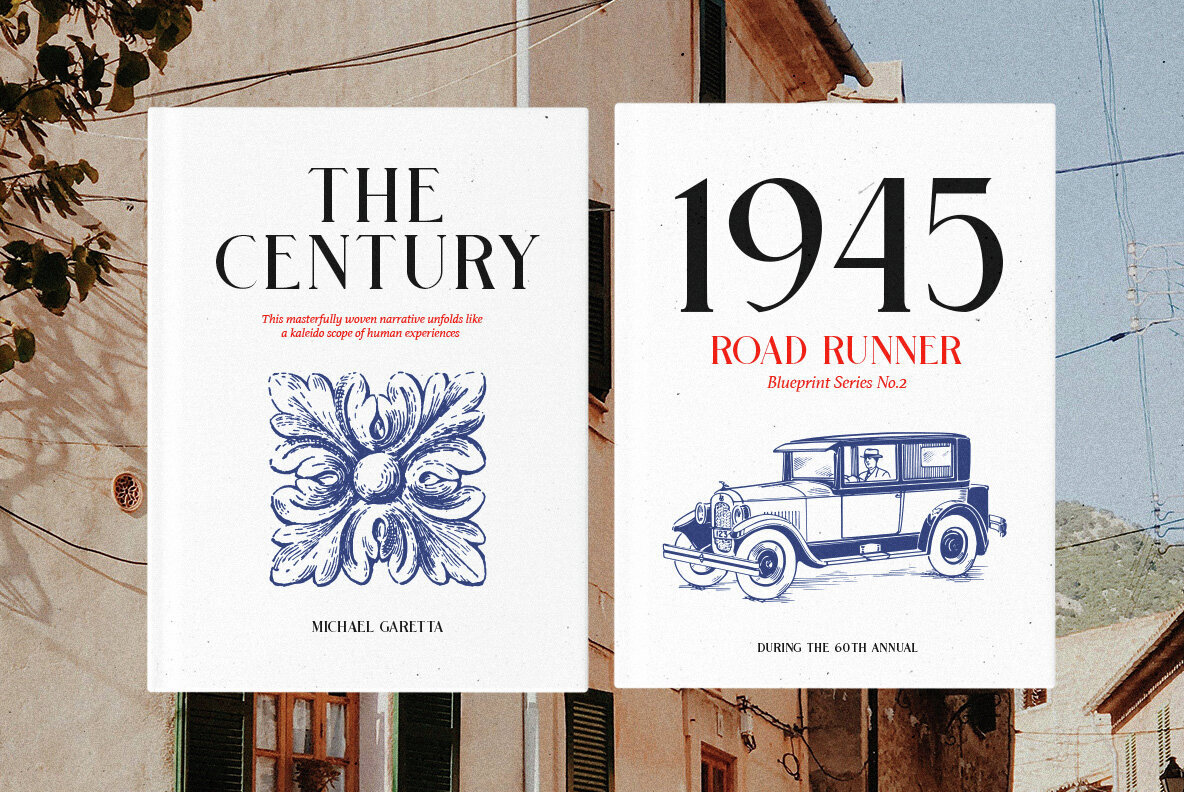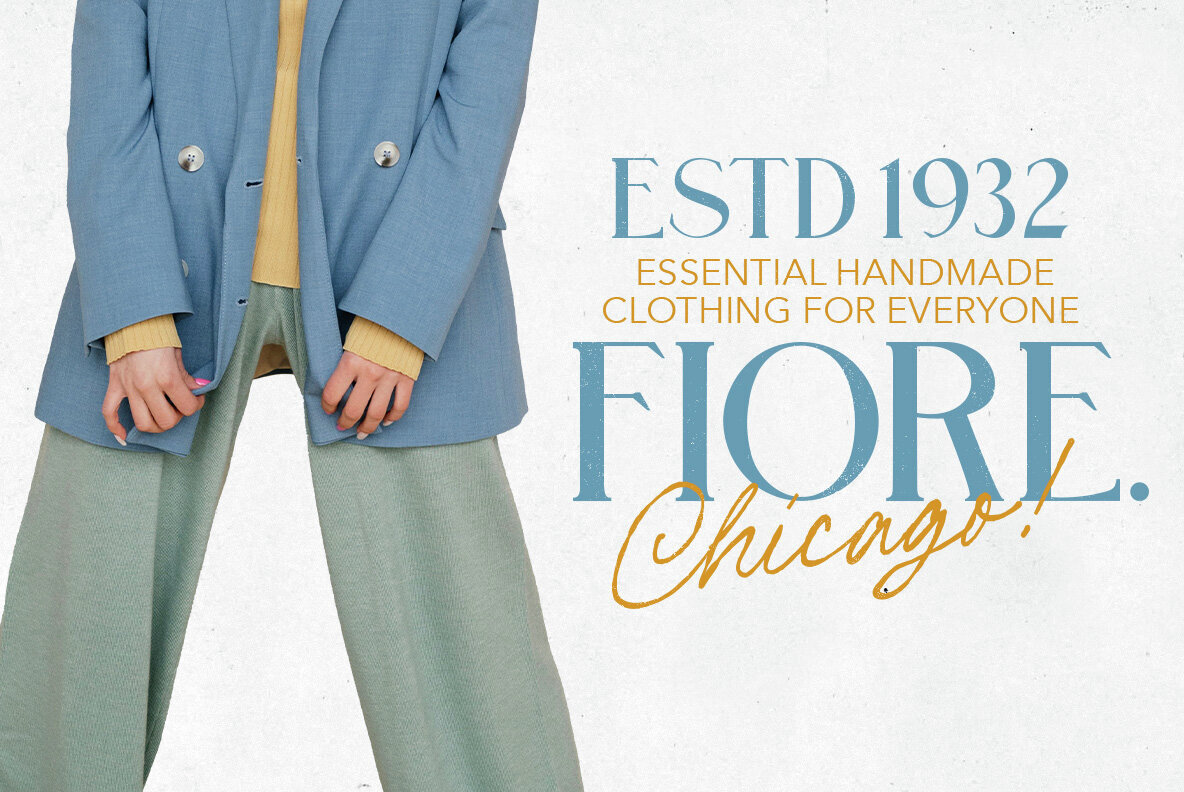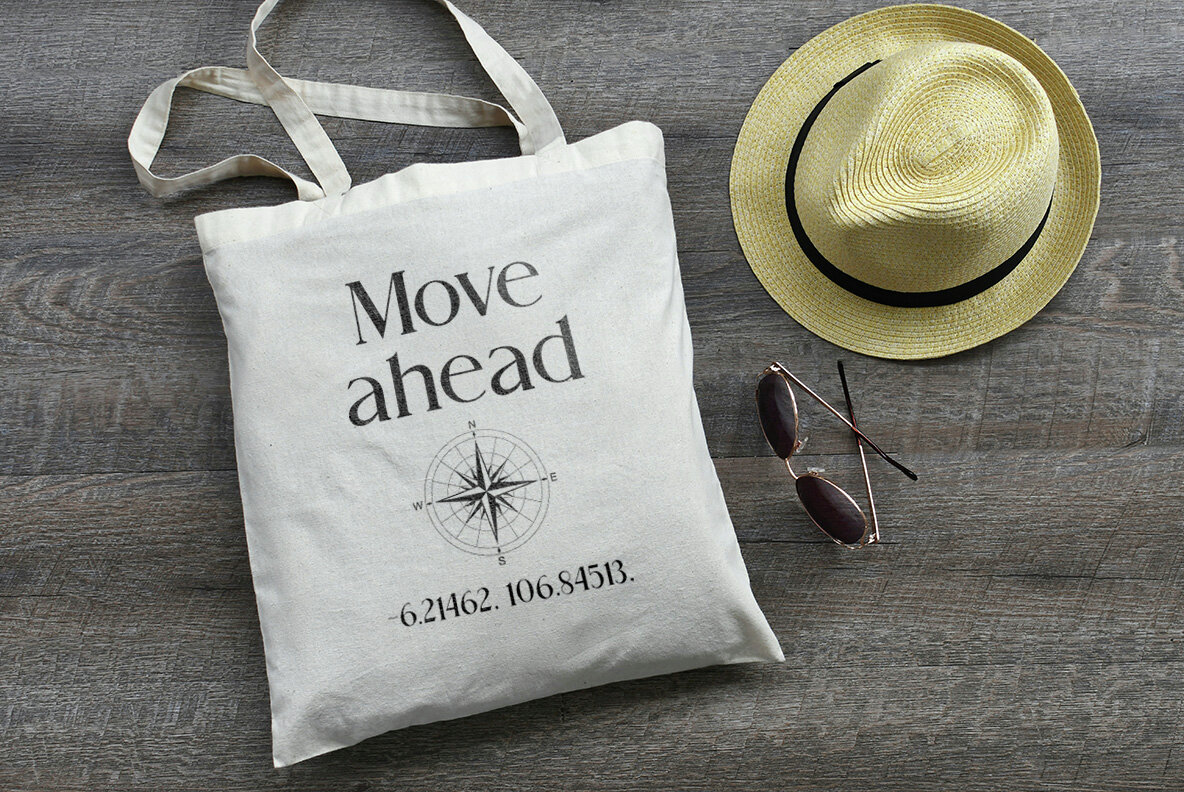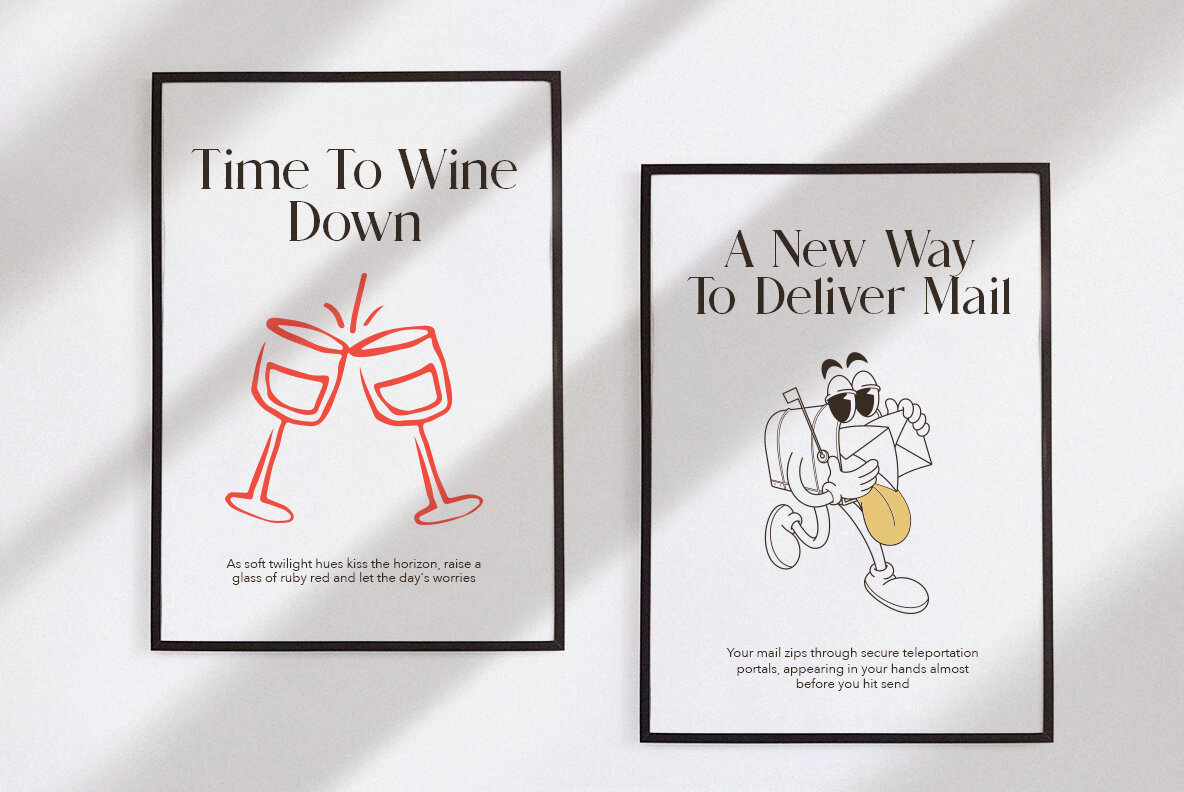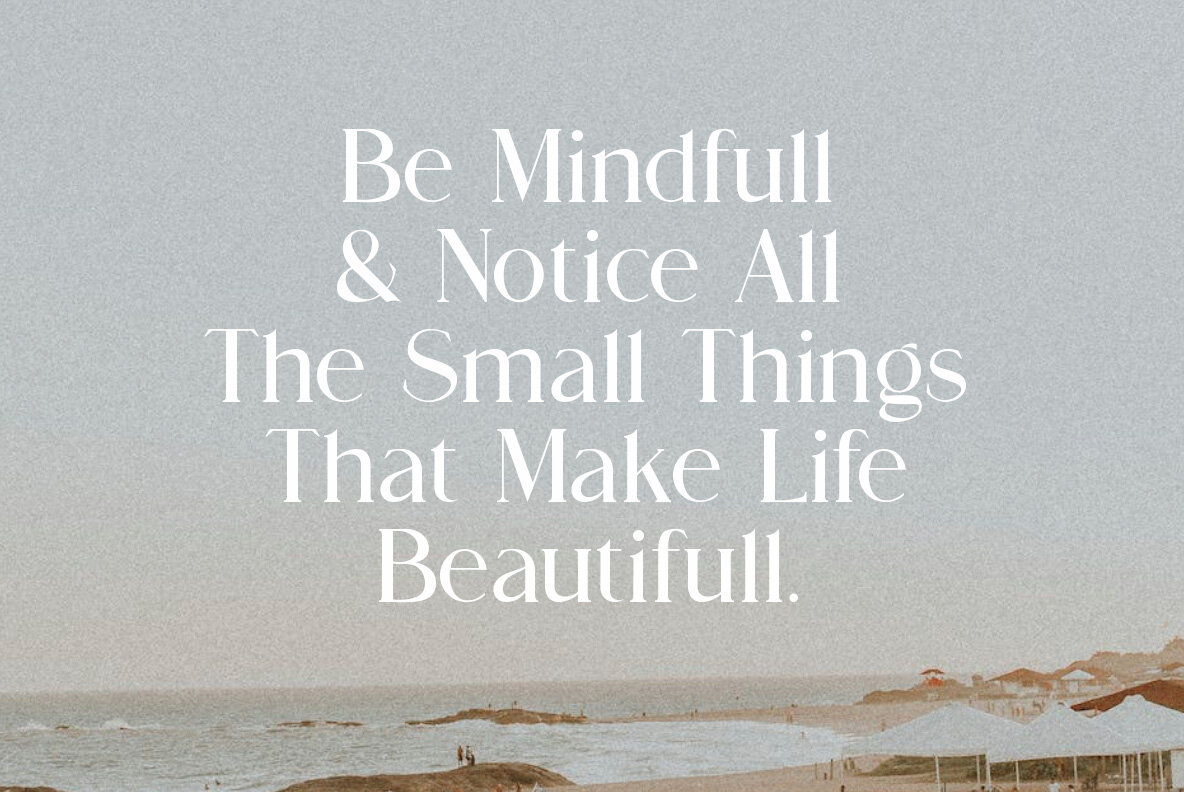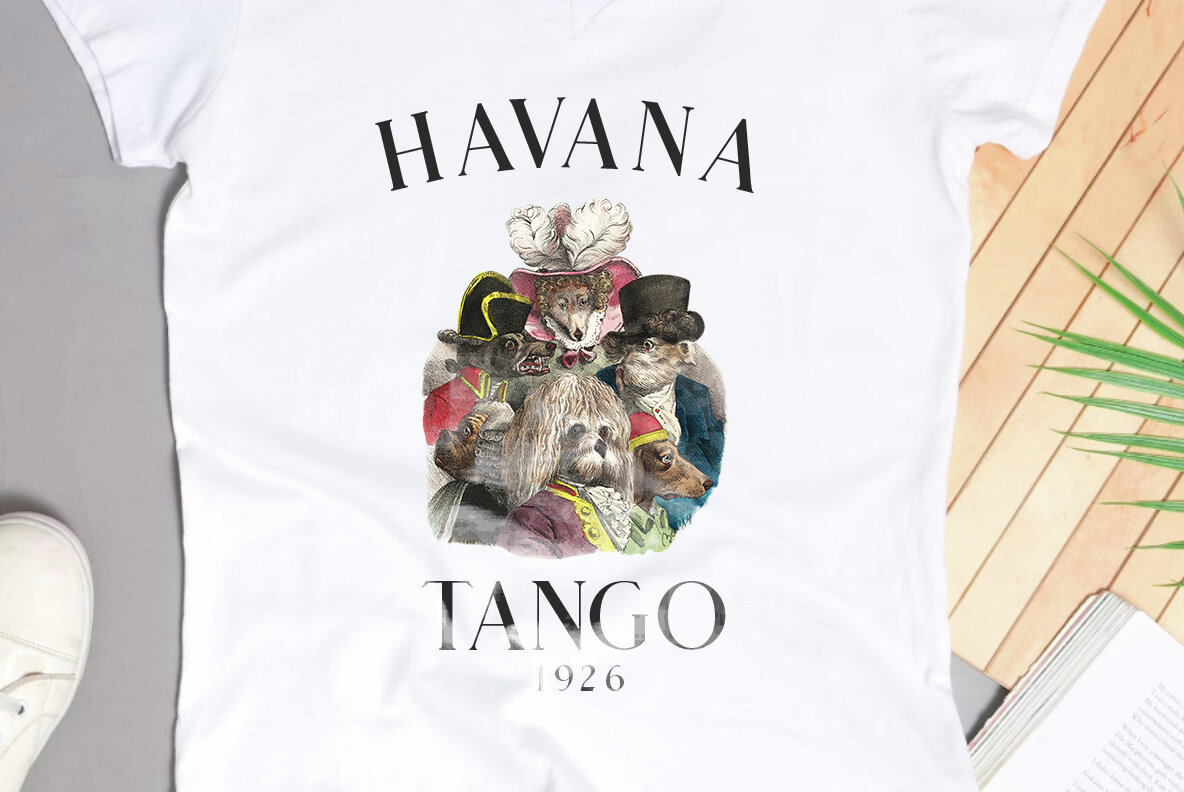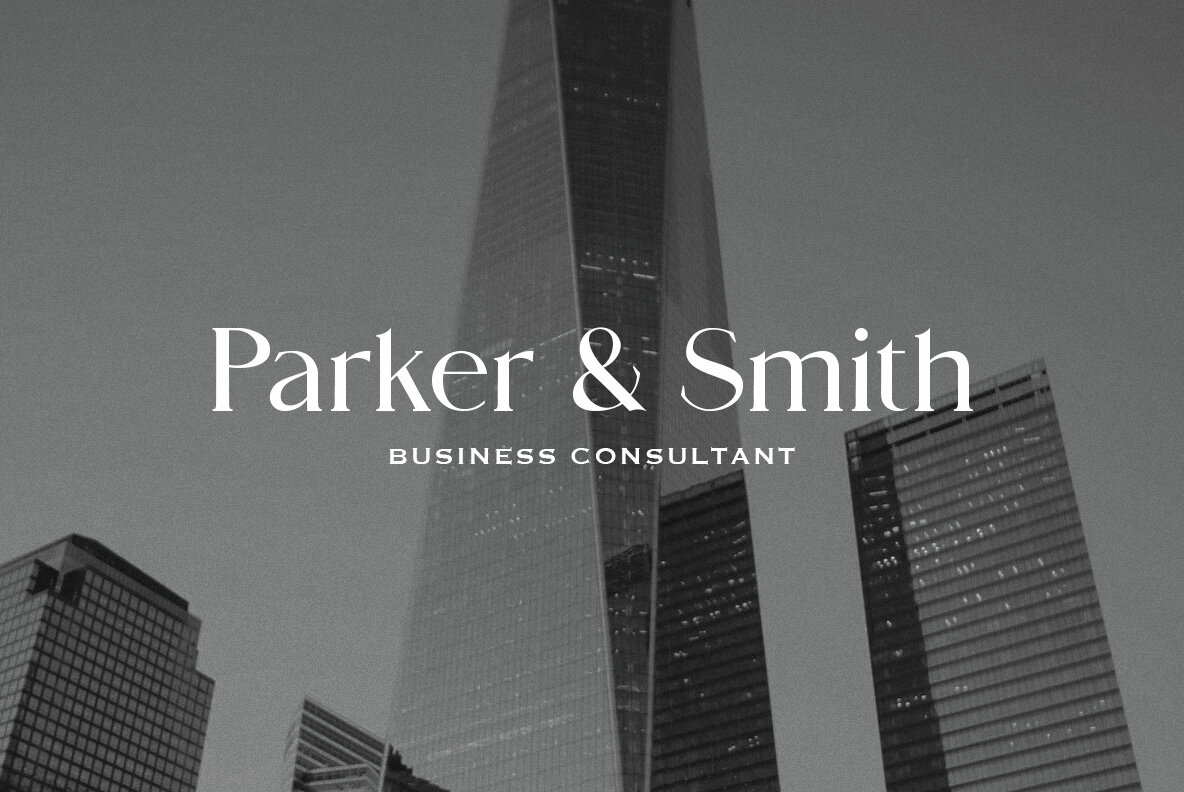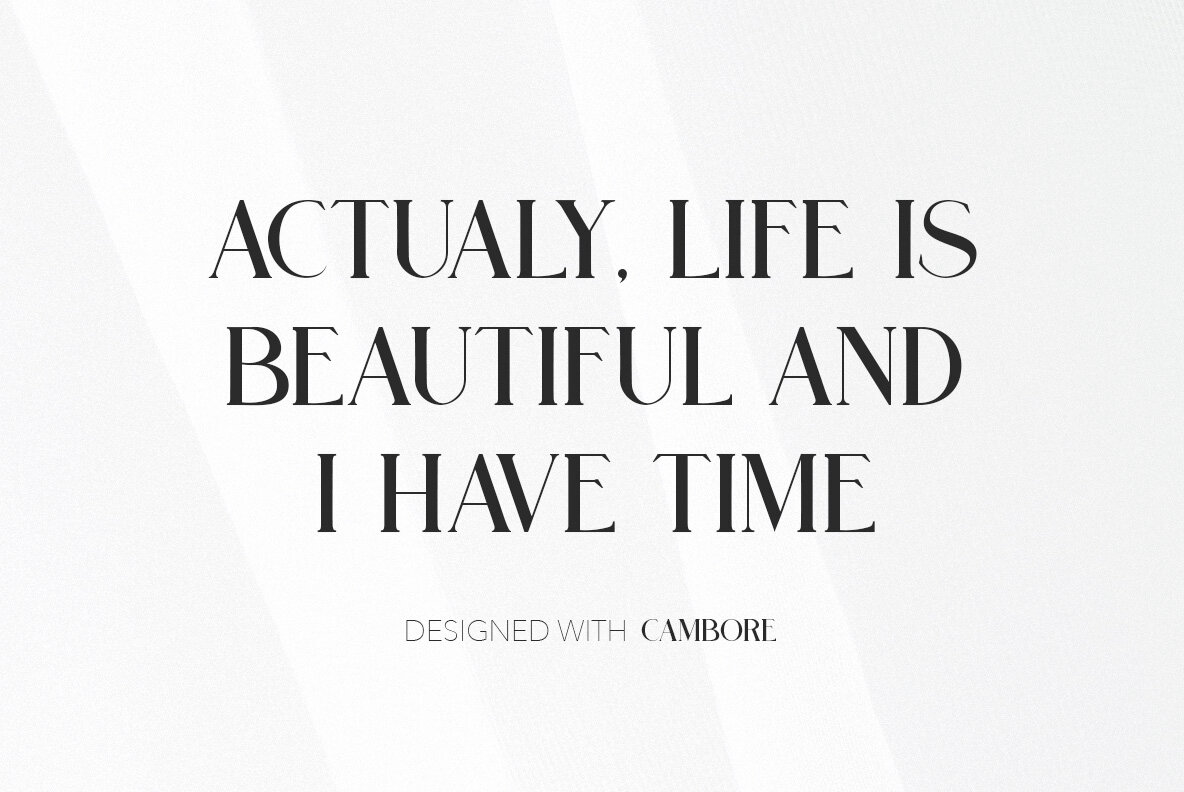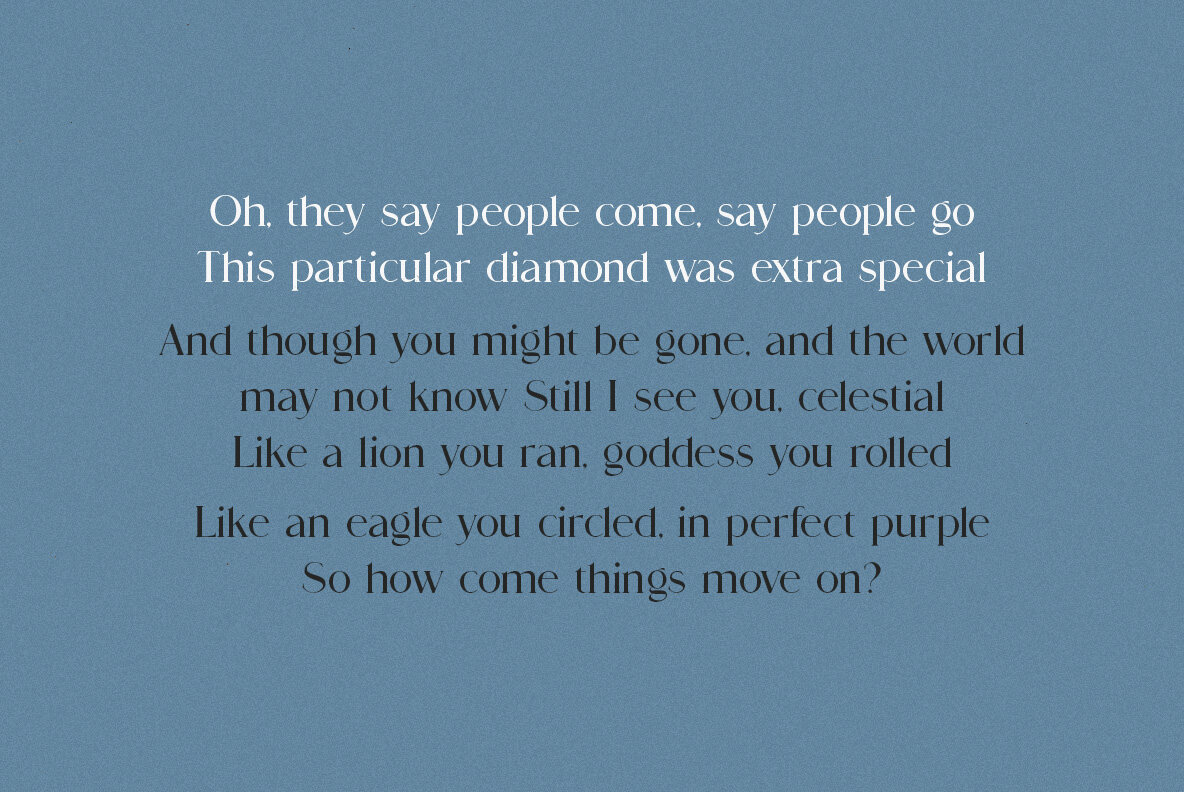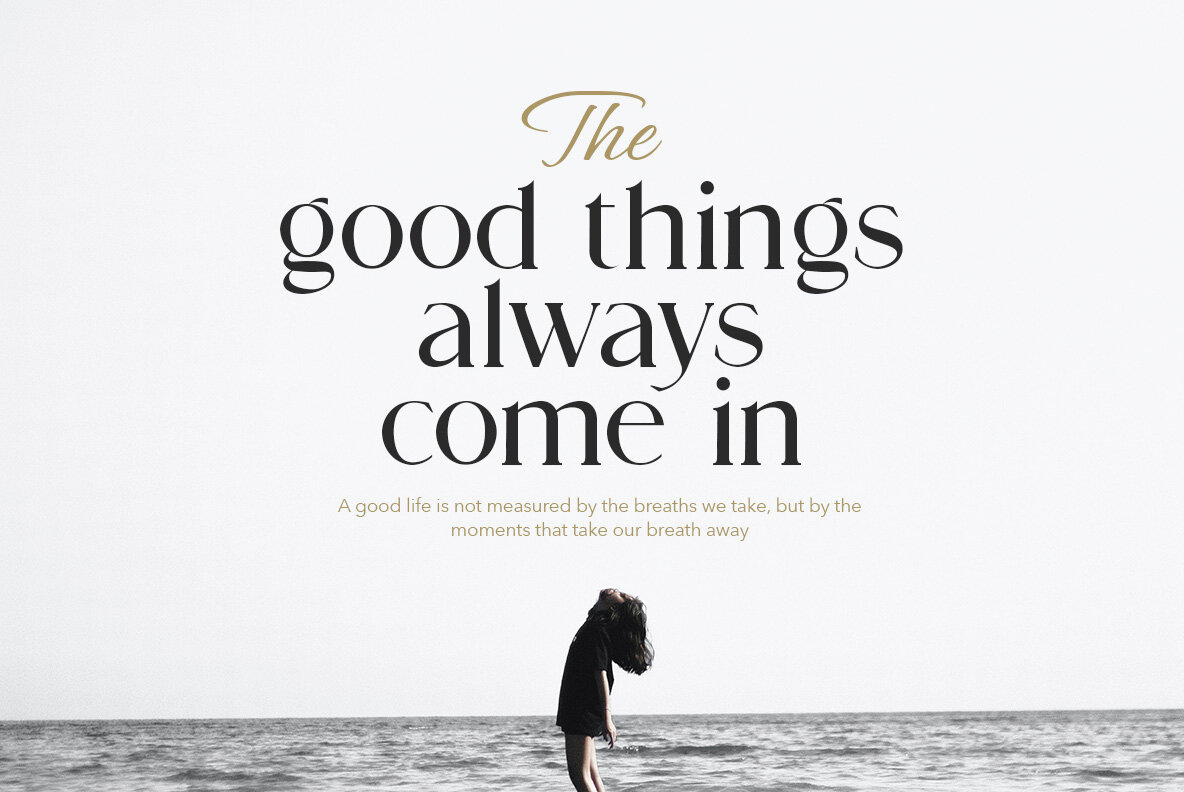
Cambore Font
Cambore Regular
Cambore is an exquisite serif font that seamlessly blends classic Latin style with a dash of retro elegance. This sophisticated font exudes formality, making it an ideal choice for branding purposes.Cambore: Exquisite Latin Serif Font